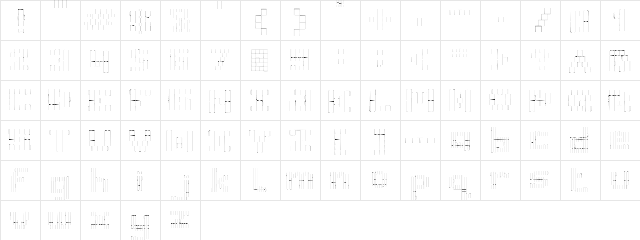
Nermin's Template Font Preview
Nermin's Template Nermin's Template
Nermin's Template Font Details
| Style | Nermin's Template |
| Foundry | Nermin Kahrimanovic |
| Designer | Nermin Kahrimanovic |
Design Context for Nermin's Template Typeface
Nermin's Template is a composed and adaptable typeface that performs quietly and consistently across a wide range of design contexts.